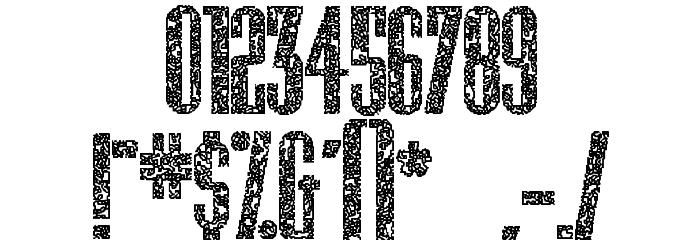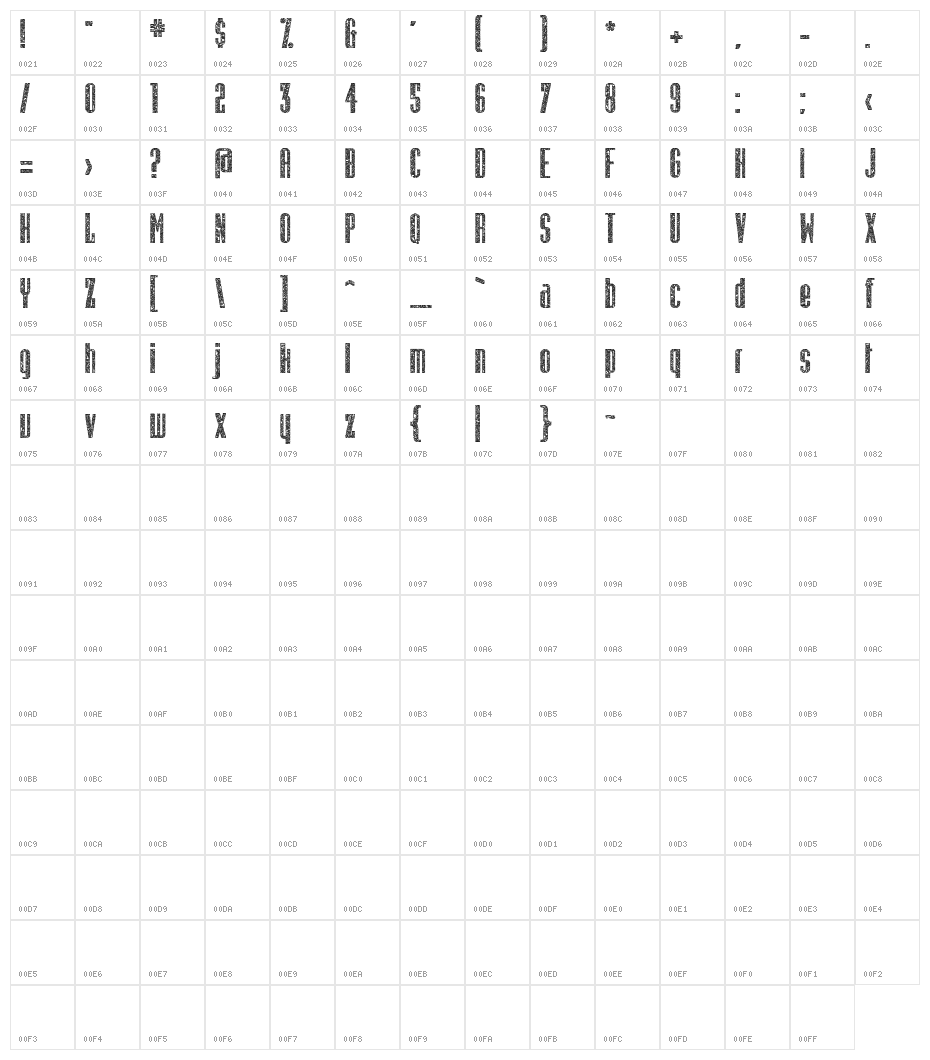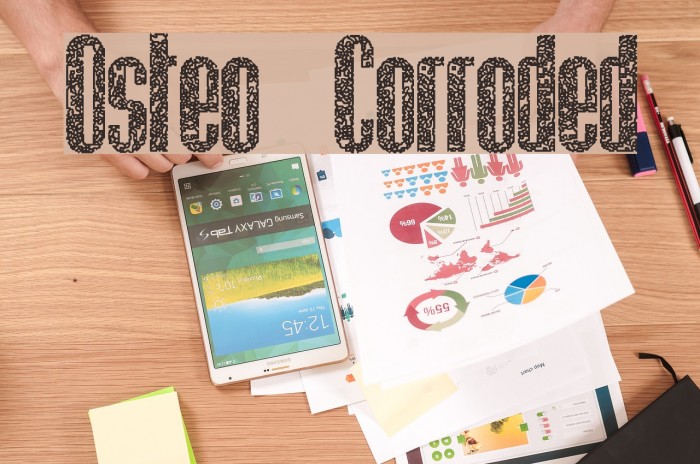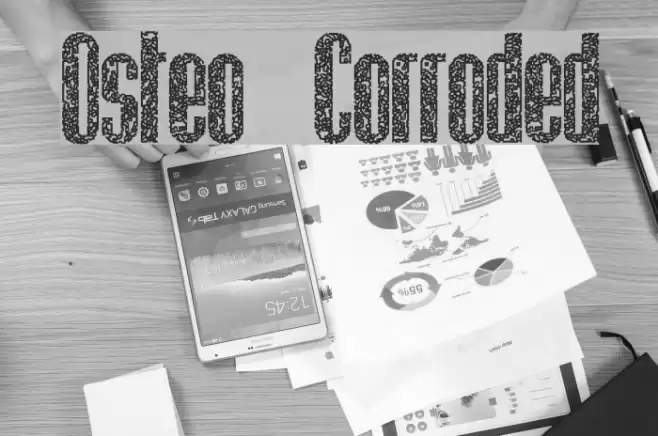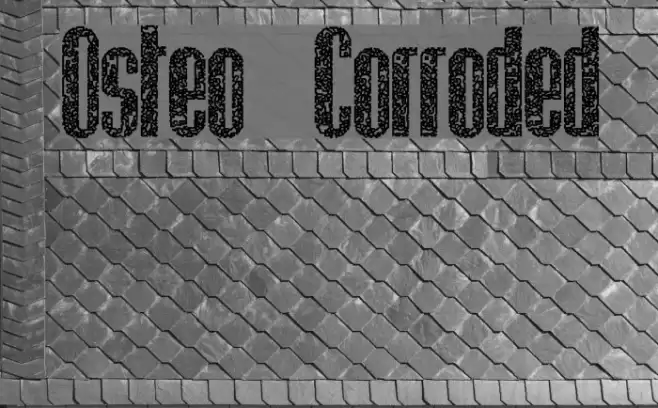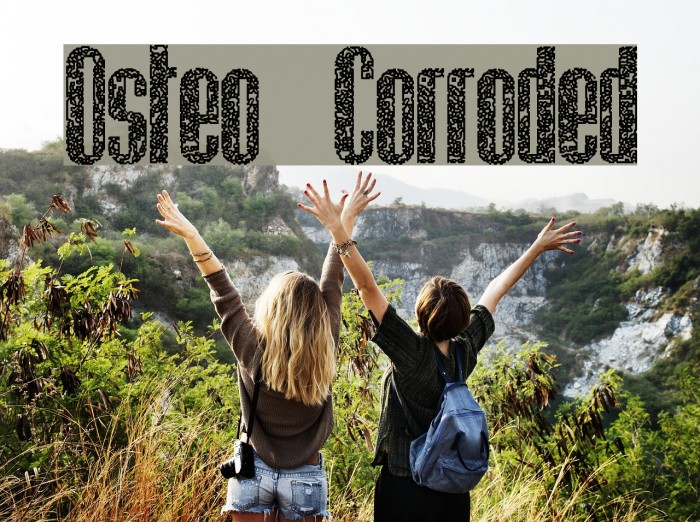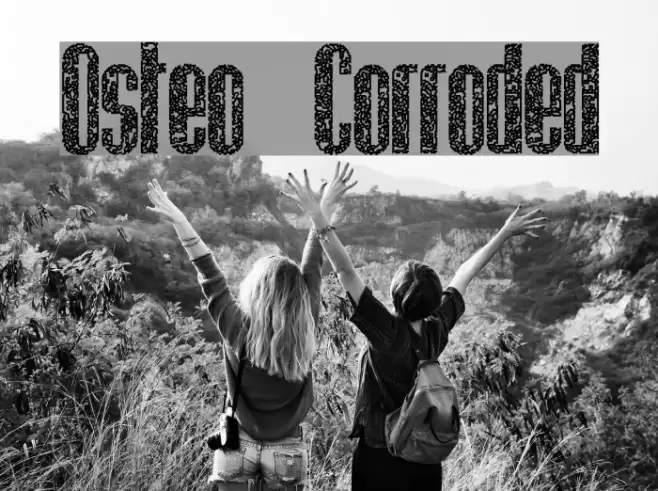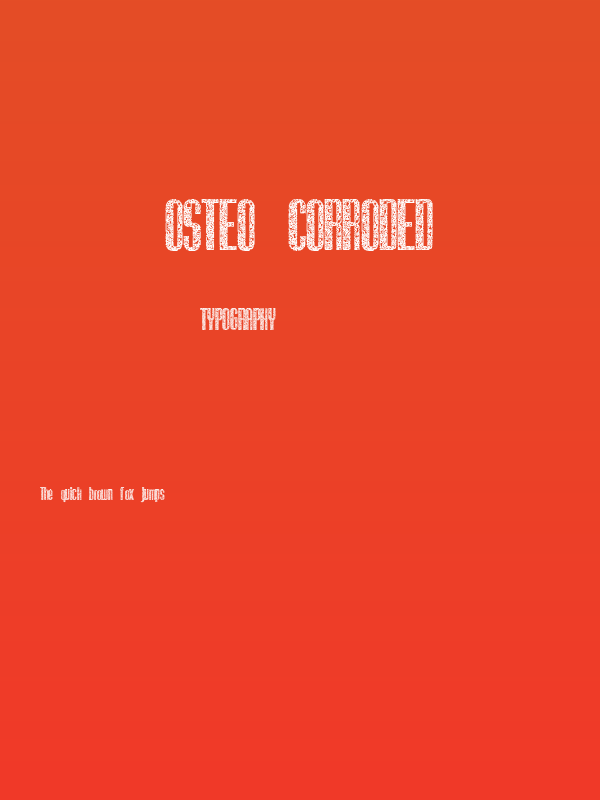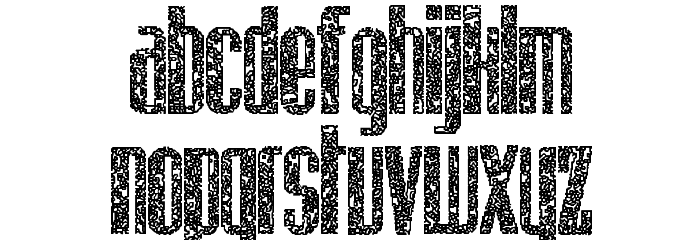
Osteo Corroded Font
Osteo Corroded Description
This font features a unique, distressed texture that gives it a corroded, weathered appearance. The characters are bold and robust, with a rough, textured surface that suggests decay or erosion. This style is reminiscent of industrial or grunge aesthetics, making it ideal for designs that require a rugged, edgy look. The uppercase and lowercase letters maintain a consistent style, and the numerals and special characters are equally detailed, ensuring a cohesive appearance across all text. The font's distinctive texture adds depth and character, making it stand out in any design project.
| Overall Style | Grunge, Industrial |
| Proposed Projects | Ideal for album covers, posters, branding for edgy or industrial-themed products, and any design requiring a gritty, textured aesthetic. |